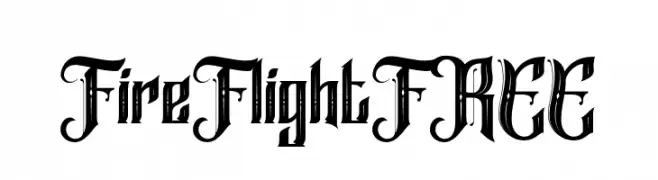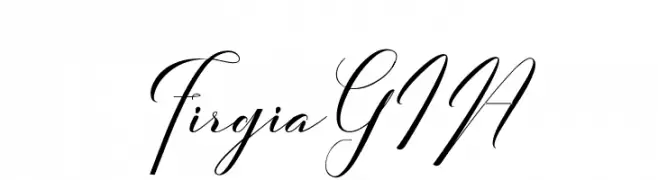
A flowing, elegant script font with sweeping swashes and varied stroke thickness.
A modern, geometric font with clean lines and rounded corners, ideal for technical and futuristic designs.
A modern, geometric font with clean lines and a futuristic style.
A bold, dynamic brush script font with energetic, sweeping strokes.
An elegant script font with ornate, flowing characters.
An ornate and dramatic Blackletter-style font with intricate details.
A bold, ornate blackletter style font with intricate details.
An elegant and flowing script font with graceful, cursive letterforms.
A playful, bold font with a retro halftone pattern and rounded characters.
A decorative icon font of world flags in a minimalist, monochrome style.